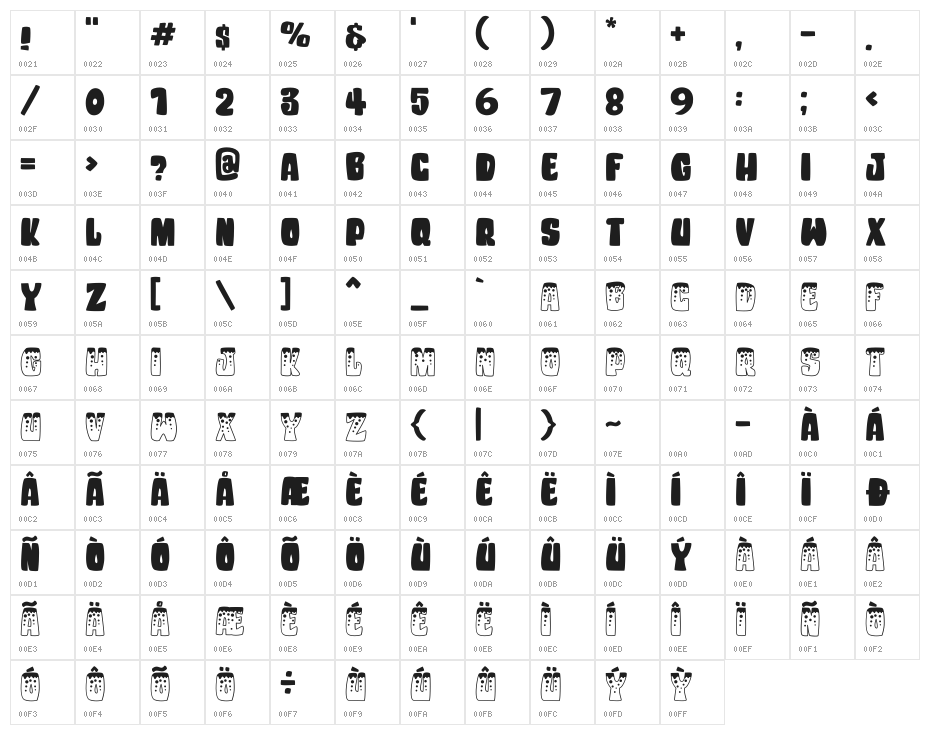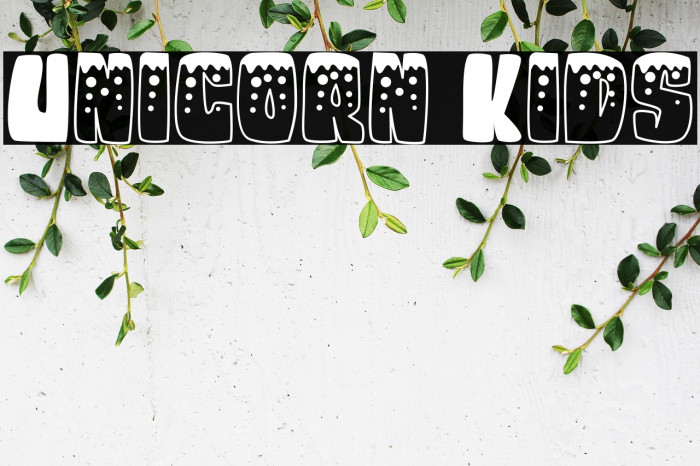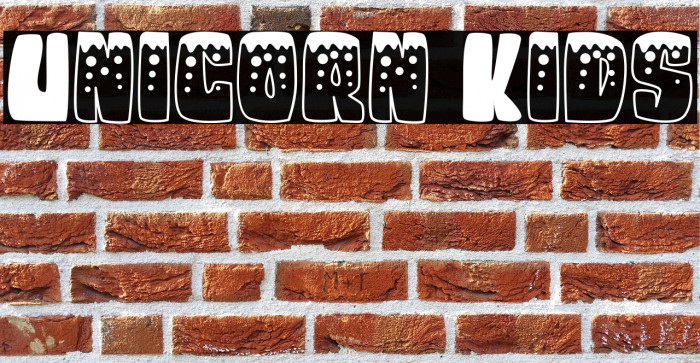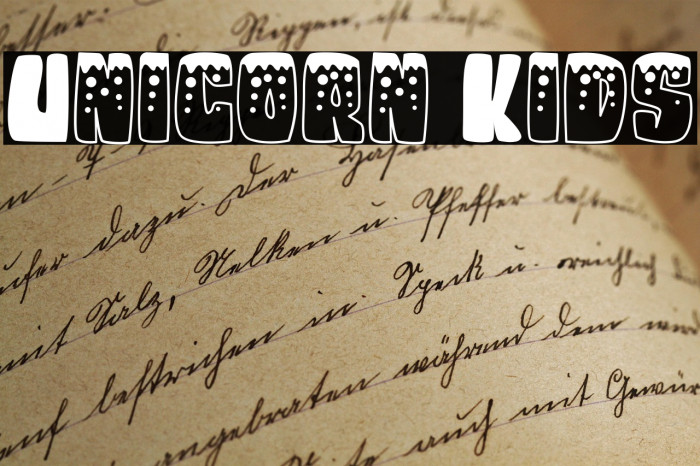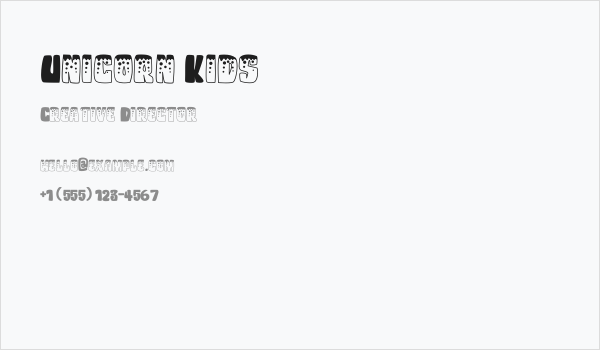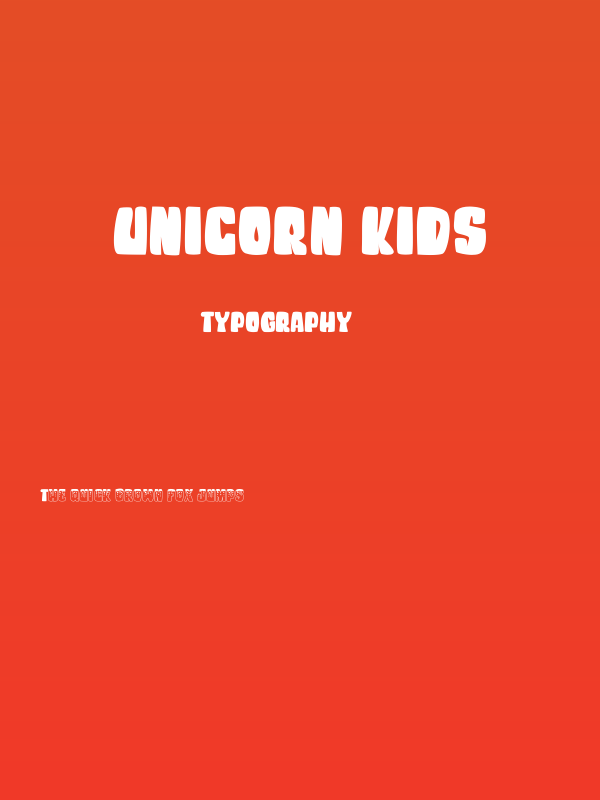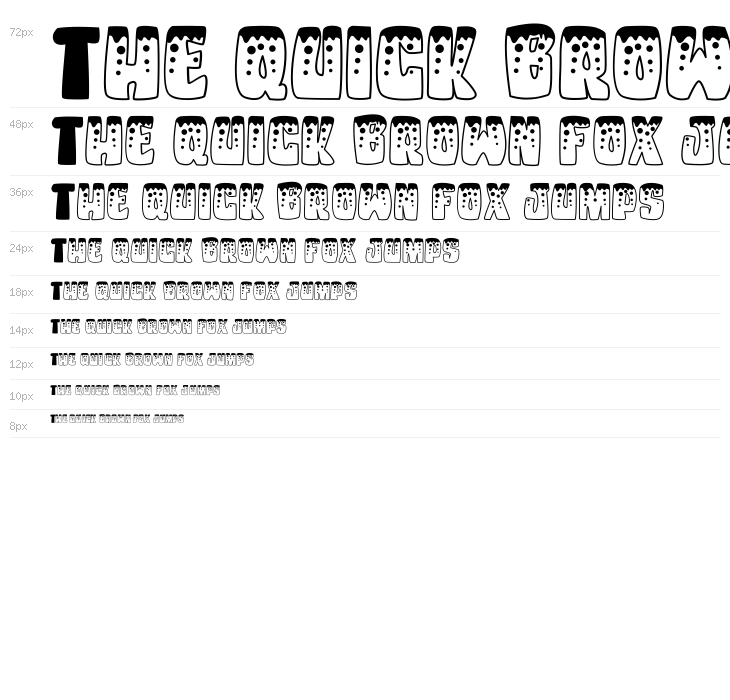
Unicorn Kids Font
Unicorn Kids Description
This playful and whimsical font features bold, rounded characters with a friendly and approachable style. The uppercase letters are chunky and filled with personality, while the lowercase letters maintain a consistent, bubbly appearance. The numbers are equally bold, ensuring readability and a cohesive look across all characters. Special characters are designed with the same playful aesthetic, making this font ideal for creative and fun projects. The font's unique style is characterized by its thick strokes and a slightly irregular shape, adding to its charm and appeal.
| Proposed Projects | Ideal for children's books, playful branding, party invitations, and educational materials. |